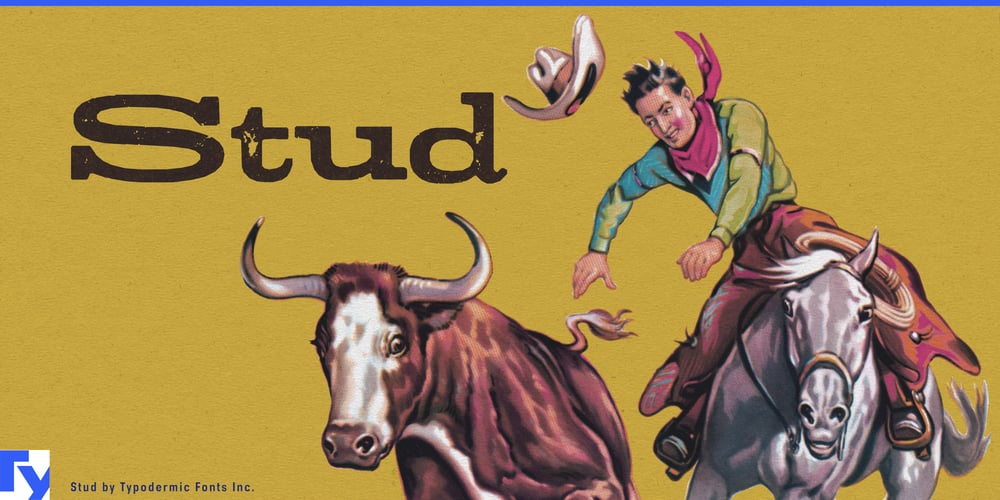
Stud
Stud font
Stud Font Family was designed by Ray Larabie and published by Typodermic. Stud contains 1 styles and family package options. Saddle up, partners—it’s time to ride with Stud, the typeface that packs more punch than a bronco at a rodeo. This is a full-blown typographic maverick, ready to lasso attention and wrangle your message into the spotlight.Stud stands tall with its brawny serifs and wide-set characters, exuding the kind of confidence you’d expect from a seasoned trail boss. It’s got grit, it’s got power, and it sure as heck ain’t afraid to speak its mind. When your words are decked out in Stud, they don’t just sit on the page—they command it. But Stud’s got more tricks up its sleeve than a card shark at a saloon. In OpenType-savvy applications, it pulls off some mighty fine typographic legerdemain, swapping out certain character combinations for custom pairs that’ll make your text pop like a whip crack in the desert air. It’s the kind of attention to detail that separates the typographic wheat from the chaff.Now, if you’re the type who likes to keep a tight rein on things, Stud’s got you covered. You can easily disable those fancy automatic swaps by turning off the “standard ligatures” function. It’s your rodeo, after all—Stud just provides the horsepower. This typeface ain’t just about looking pretty, though. It’s a hard-working font that’s fluent in more languages than a worldly cowpoke. From the plains of Africa to the fjords of Scandinavia, Stud’s got the linguistic chops to carry your message across borders and cultures with the same rugged charm.So when your design needs some serious backbone, when your words need to hit harder than a prospector’s pickaxe, that’s when you call on Stud. It’s a testament to the power of bold, uncompromising design. Saddle up with Stud, and let your message ride off into the sunset of greatness.